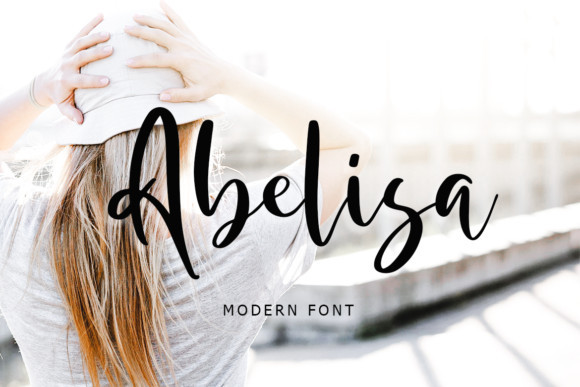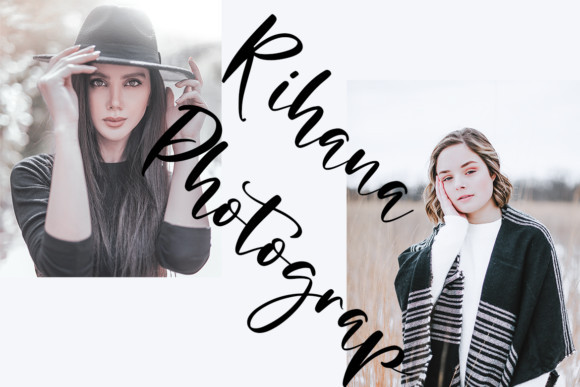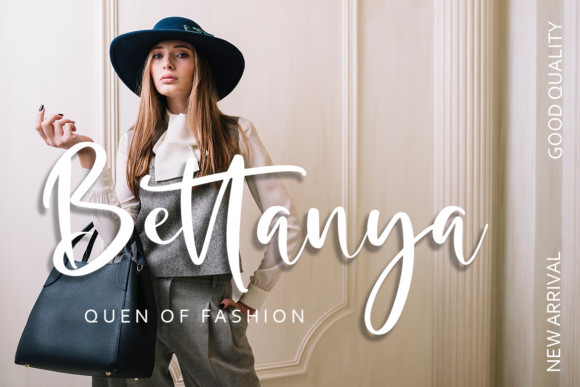
Abelisa Font
Abelisa is a delicate and flowing handwritten font. Fall in love with its elegant and versatile style and add it to each of your creative ideas. It will bring your projects to the highest level!